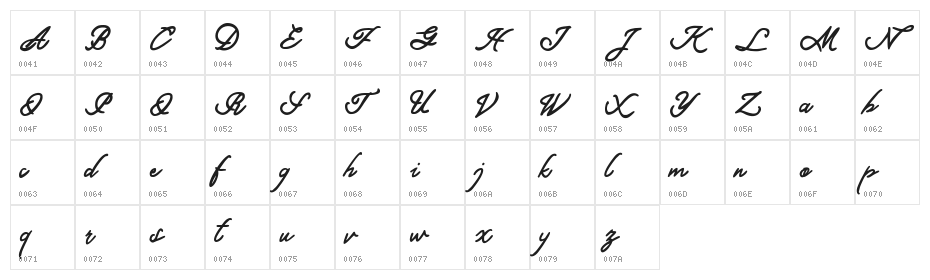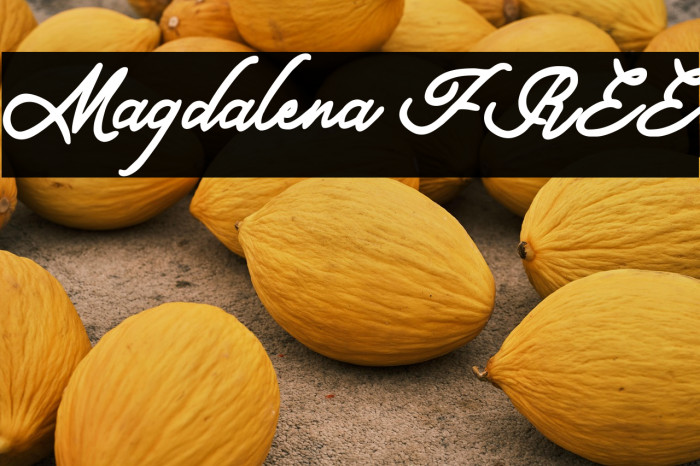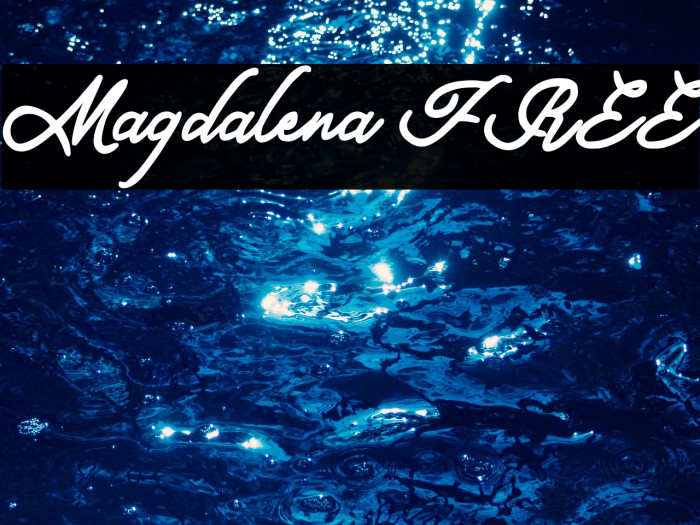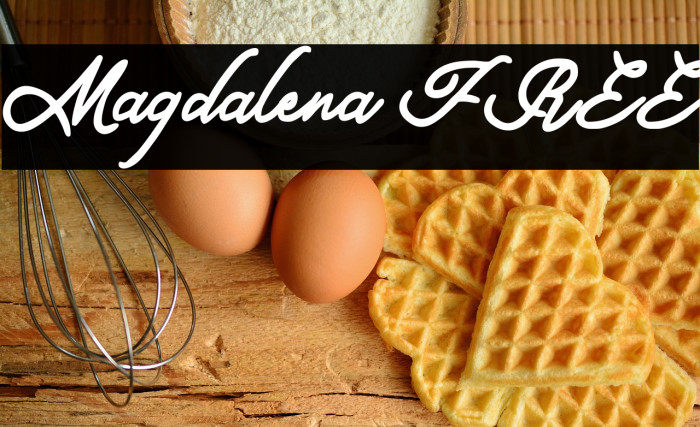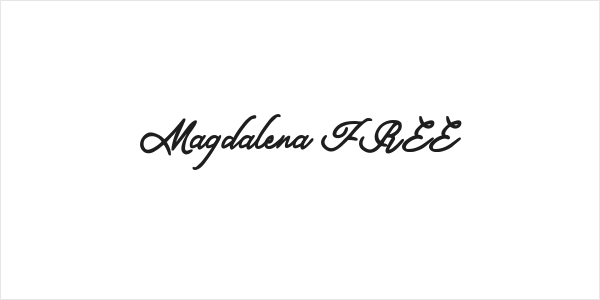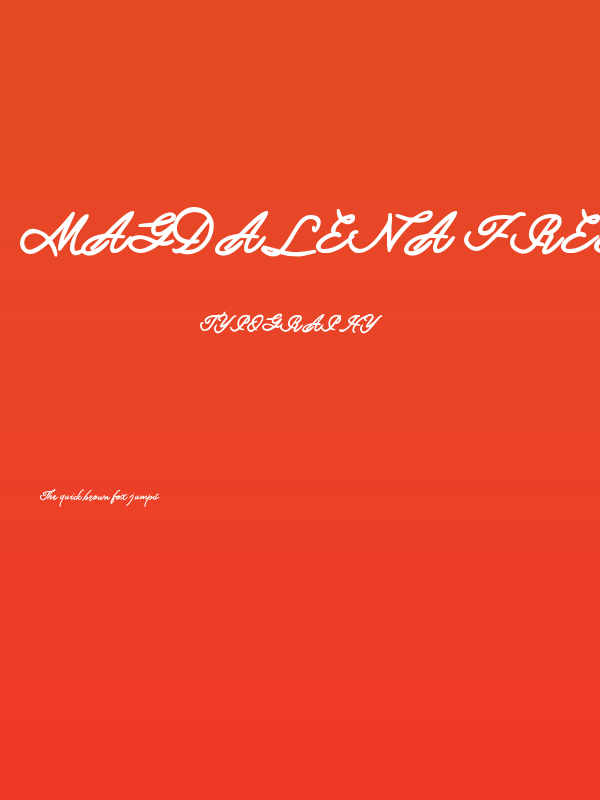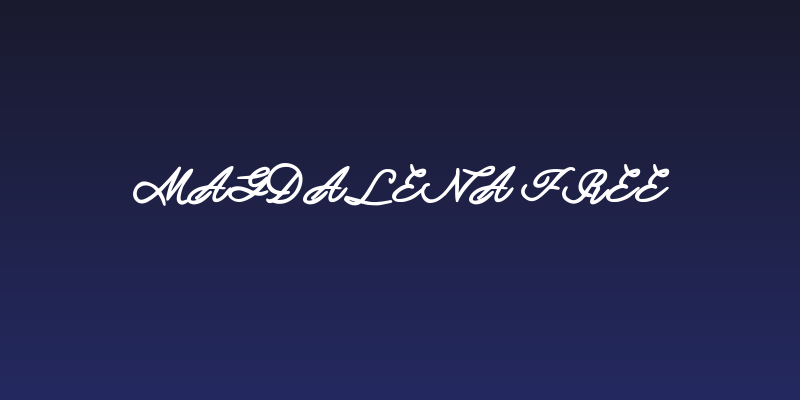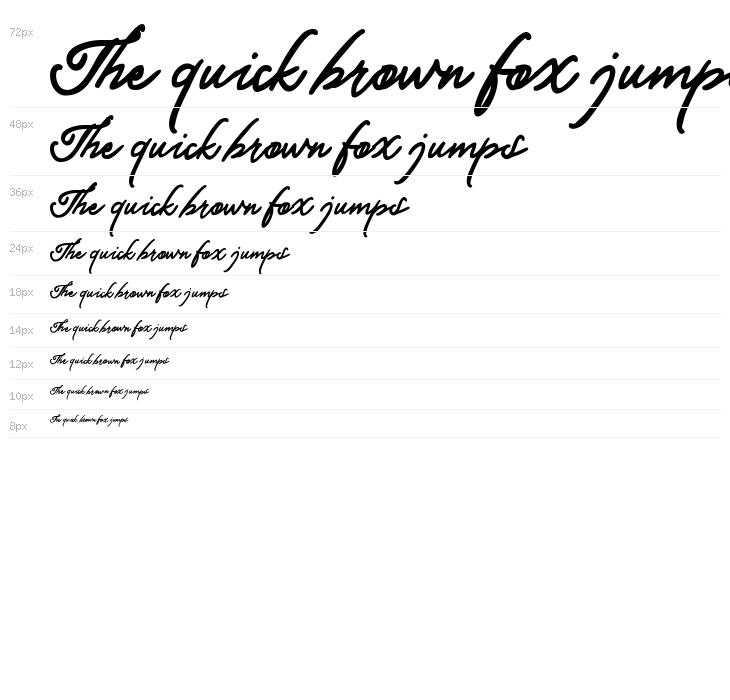
Magdalena FREE Font
Magdalena FREE Description
This font features an elegant and flowing script style, characterized by its cursive, handwritten appearance. The letters are interconnected, creating a seamless and fluid look. The strokes are moderately thick, providing a bold presence while maintaining a graceful aesthetic. The uppercase letters exhibit a sophisticated flair with decorative loops and swashes, while the lowercase letters maintain a consistent and smooth flow. This font exudes a sense of elegance and sophistication, making it suitable for formal and decorative applications.
| Overall Style | Elegant, Decorative |
| Use Case | Headlines, Invitations, Logos |
| Proposed Projects | Ideal for wedding invitations, elegant branding, greeting cards, and decorative headings. |